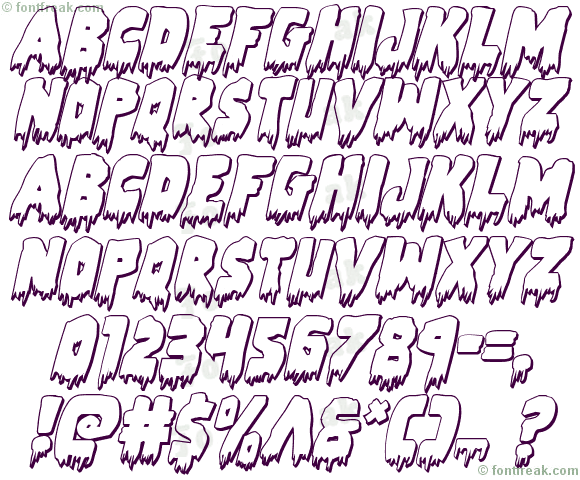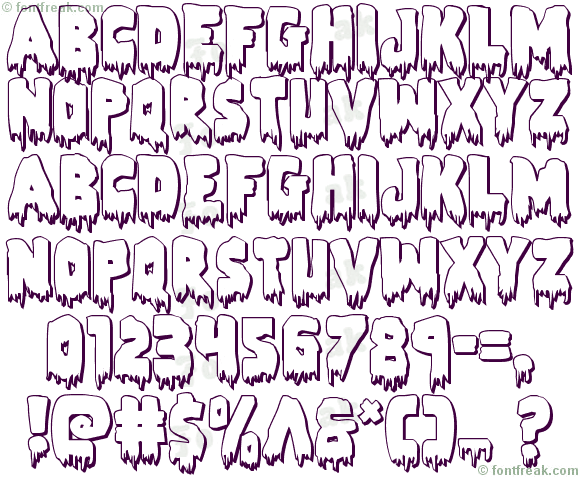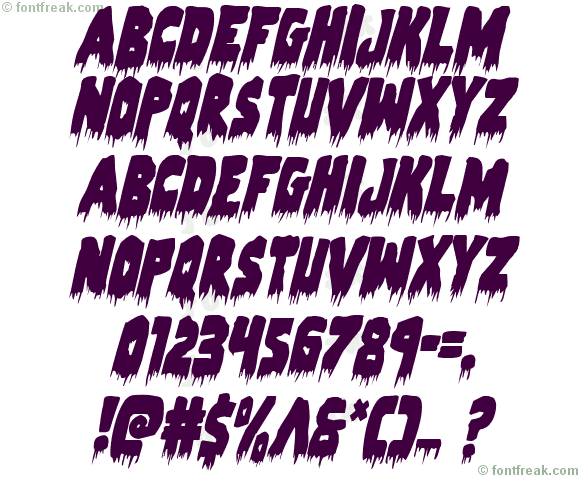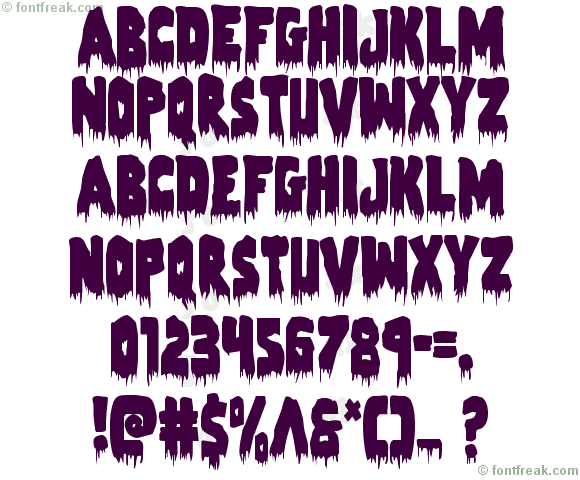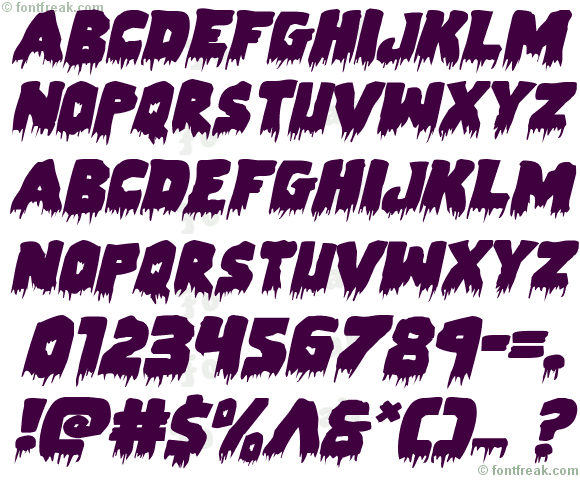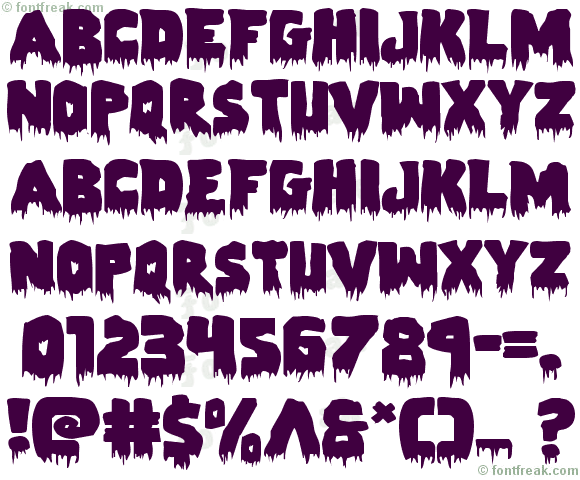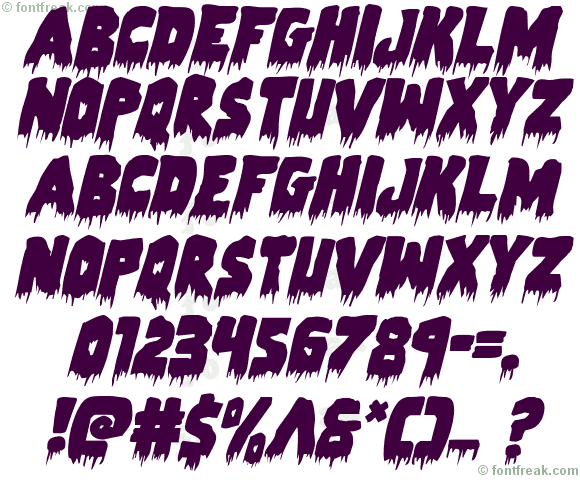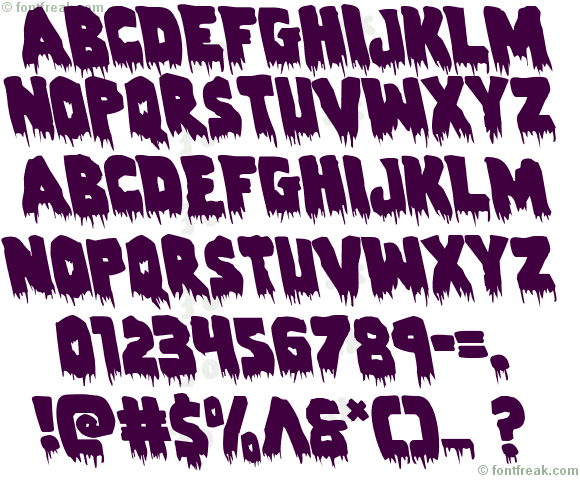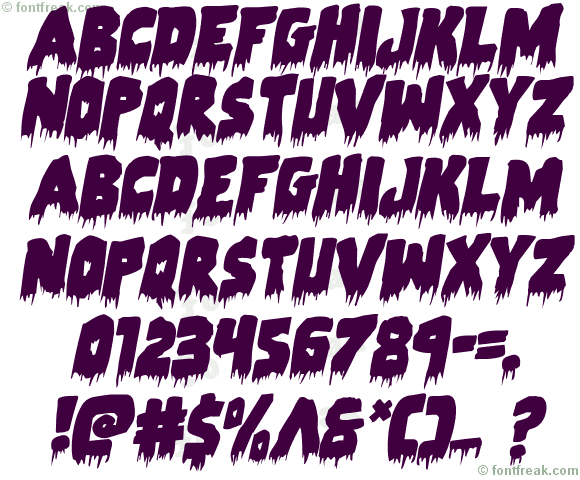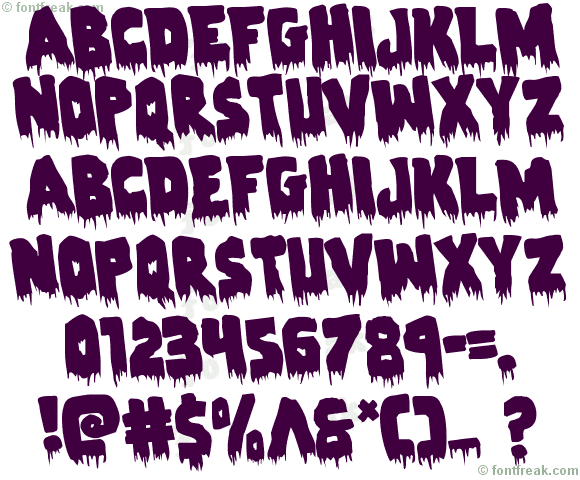
Zombie Control
About Zombie Control
Zombie Control, designed by Daniel Zadorozny, is a striking display font that falls within the decorative category. This font is characterized by its bold, condensed letterforms that evoke a sense of urgency and excitement, making it perfect for themes related to the supernatural and horror. The unique visual style features heavy stroke weights with a rough, dripping effect that mimics the appearance of blood or slime, creating a dramatic impact. The italicized and rotated elements enhance its dynamic feel, while the expanded and condensed variations provide versatility in design applications.
This font is particularly well-suited for a variety of creative projects. It can be used effectively for movie posters, especially those in the horror genre, where the chilling aesthetic can set the mood. Additionally, Zombie Control works wonderfully for Halloween-themed event flyers, adding a playful yet eerie touch that captures attention. Graphic designers looking to create eye-catching merchandise, such as T-shirts or stickers, will find this font an excellent choice for conveying a fun, spooky vibe. Its distinctive style also makes it ideal for video game graphics, particularly in the horror or adventure categories, where it can enhance the overall theme.
The target audience for the Zombie Control font includes graphic designers, small business owners in niche markets, and content creators who want to make a bold statement with their designs. Whether you're crafting promotional materials or designing unique merchandise, this font provides a creative edge.